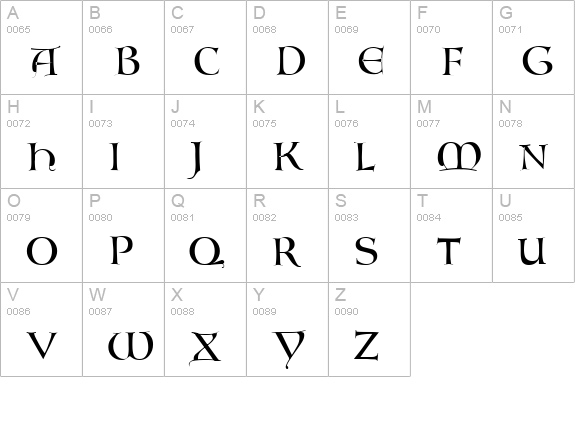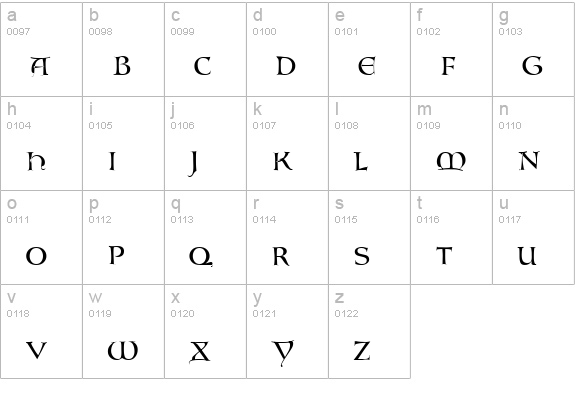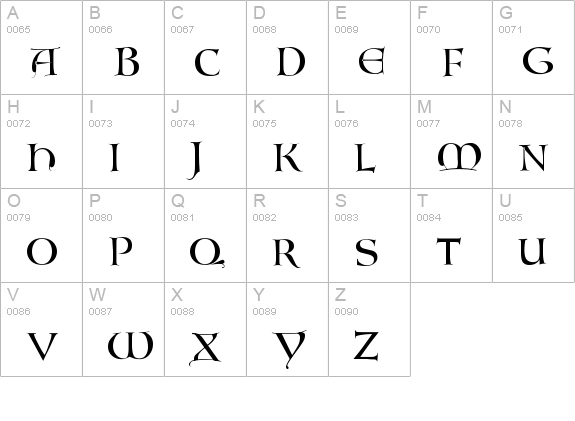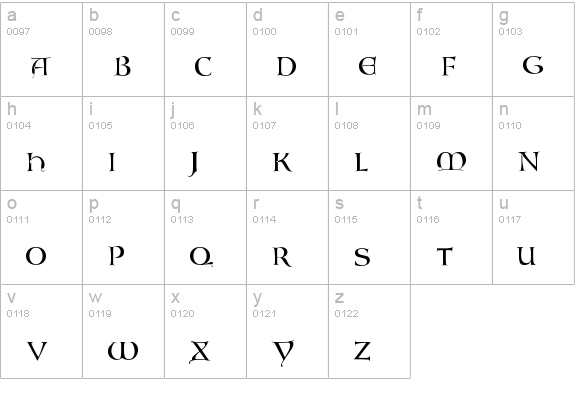
Lombardic Regular Font Details
Lombardic Regular is the standard, neutral variant in the Lombardic typeface family \xE2\x80\x94 well suited to general body text, paragraphs, and standard typographic work.
Lombardic Regular font is a stunning display typeface that exudes elegance and sophistication. With its intricate details and distinctive letterforms, this font is perfect for adding a touch of medieval charm to your designs. The Lombardic Regular font features ornate capitals with flourishes and serifs that give it a timeless and classic look. This versatile font is ideal for creating eye-catching headlines, logos, invitations, and more. Its bold and majestic appearance makes it a great choice for projects that require a touch of vintage flair. Whether you're designing a poster for a historical event or crafting a wedding invitation with a regal touch, the Lombardic Regular font is sure to make a statement. Best of all, Lombardic Regular font is available for free download at FontsMarket.com. So you can easily access this exquisite typeface and elevate your designs without breaking the bank. Download Lombardic Regular font today and add a touch of old-world charm to your projects!